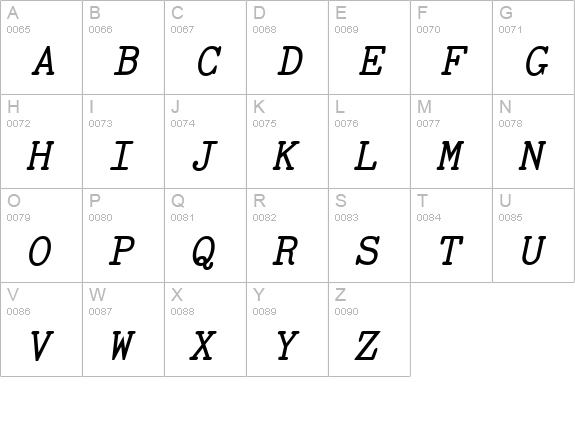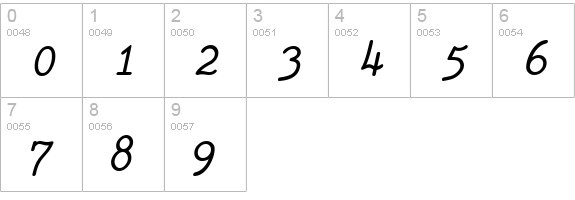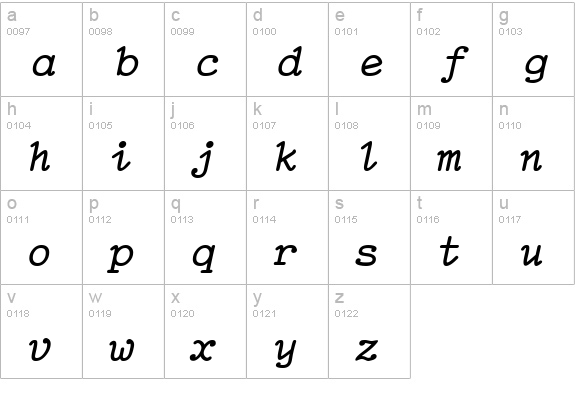
TiredOfCourier BoldItalic is a stunning font that effortlessly combines boldness and elegance. Its unique blend of strong, italicized lines and sophisticated curves make it perfect for adding a touch of style and class to any design project. This font captures attention with its distinctive character and adds a sense of confidence and power to any text. With TiredOfCourier BoldItalic, your words will become bold statements, commanding attention and leaving a lasting impression. Whether you're designing a logo, creating eye-catching headlines, or adding a touch of sophistication to your personal or professional projects, this font will elevate your work to new heights. But what makes TiredOfCourier BoldItalic even more exceptional is that it is available for free download at FontsMarket.com. Yes, you read that right – this remarkable font can be yours without spending a dime. FontsMarket.com is the go-to destination for font lovers looking for high-quality, free font downloads, and TiredOfCourier BoldItalic is no exception. So, why wait? Download TiredOfCourier BoldItalic today and experience the power of this captivating font. Let your creativity flow freely as you explore the endless possibilities it offers. Transform your designs into works of art that demand attention and admiration. With TiredOfCourier BoldItalic, your words will never be overlooked again.